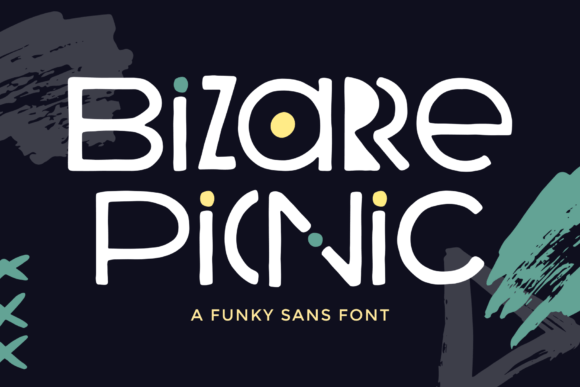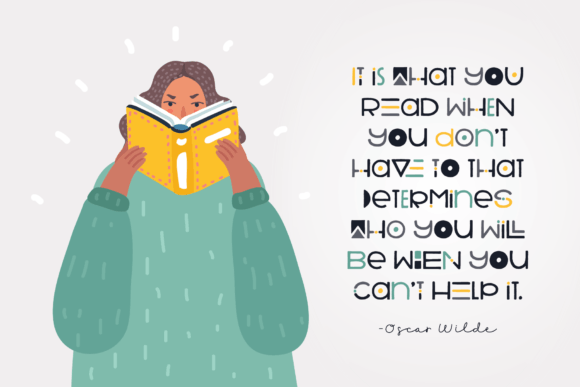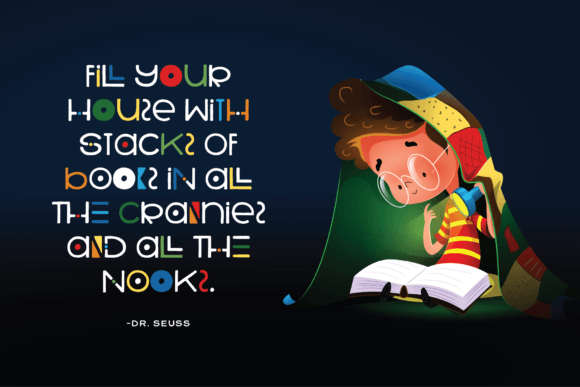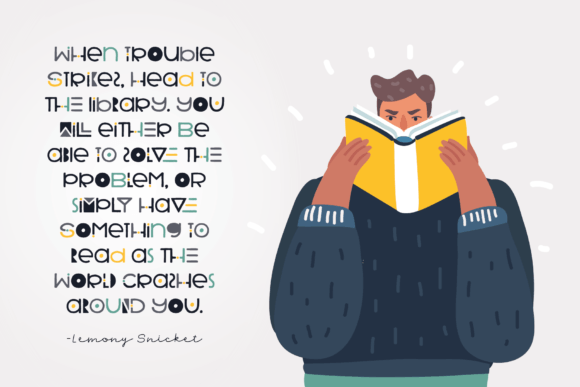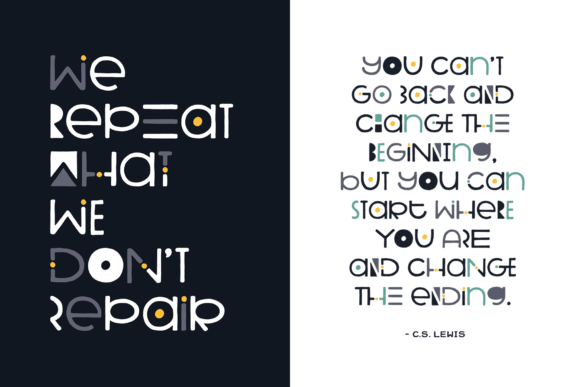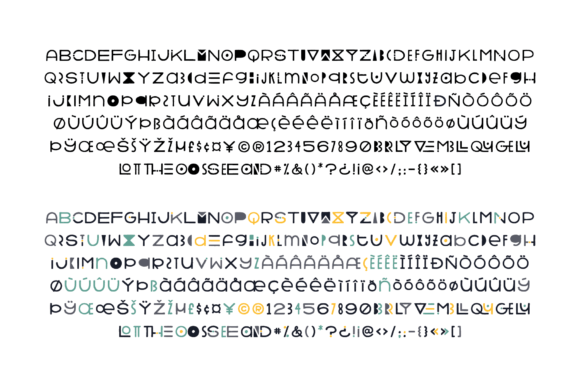
The Perfect Picnic for Your Design
Imagine you’re on a creative roll, brainstorming ideas for your next project, and suddenly, the perfect combination of words and images clicks into place. But, how do you bring that vision to life? The right font can make all the difference. Enter the Bizarre Picnic Font, a quirky and whimsical sans font that’s about to become your new go-to.
With four variations of each letter and a plethora of funky ligatures, the Bizarre Picnic Font offers endless creative possibilities. Whether you’re designing a logo, a brochure, or a social media campaign, this font is sure to add a touch of personality to your work. Its unique charm makes it a valuable asset for designers looking to stand out from the crowd.
- Unique Characteristics: Hand-drawn, quirky, and whimsical design with a mix of serif and sans-serif elements
Bizarre Picnic Font Review
First off, let me say that I’m a huge fan of unique, quirky fonts, and Bizarre Picnic definitely delivers ✨. The moment I opened it up, I was struck by the whimsical, hand-drawn feel of the characters. The font has a lot of personality and would be perfect for projects that need a touch of whimsy or playfulness.
The characters are well-designed and have a nice, even spacing, which makes them easy to read. The font also includes a wide range of characters, including punctuation, numbers, and even some fun symbols ✨.
My only real issue with Bizarre Picnic is that it’s not ideal for large blocks of text ⚠️. The font is really meant for headlines, titles, or short quotes, where its unique character can shine. If you try to use it for a long piece of text, it can start to feel overwhelming and even illegible ⚠️.
Overall, I think Bizarre Picnic is a fantastic font that’s perfect for projects that need a bit of flair. Just be mindful of its limitations and use it sparingly, and you’ll be sure to get great results.
- Unique, hand-drawn feel
- Wide range of characters, including punctuation and symbols
- Perfect for headlines, titles, and short quotes
- Not ideal for large blocks of text
The Bizarre Picnic Font is ideal for creative projects, such as:
- Food and drink packaging design
- Event invitations and promotional materials
- Whimsical children’s books and illustrations
For optimal results, use the Bizarre Picnic Font in bold or italic styles to add emphasis and create visual interest.